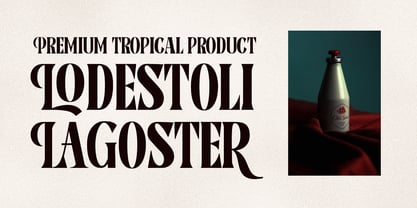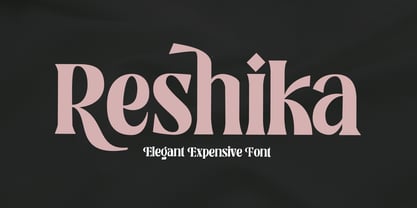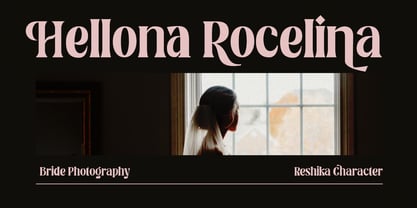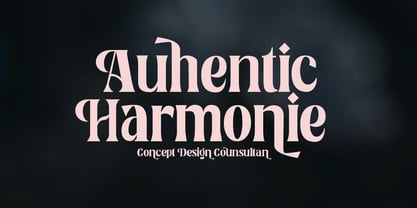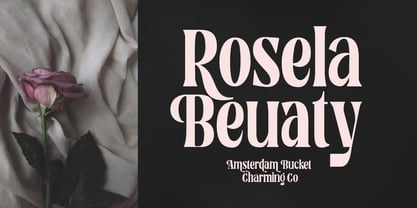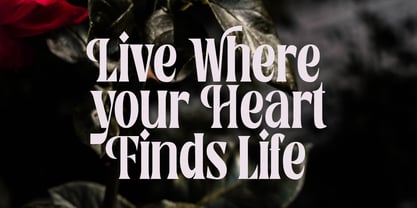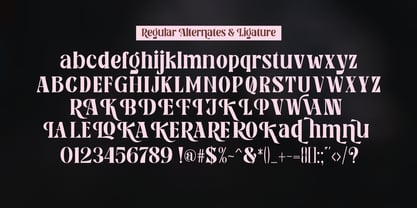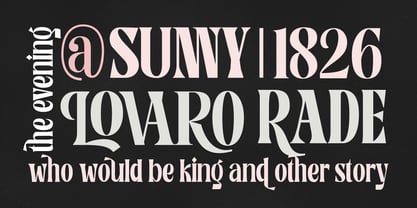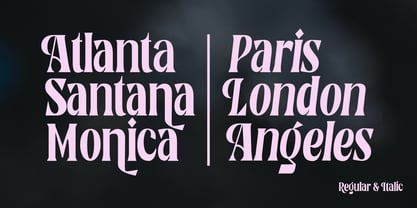
Reshika
Reshika Serif We are proud to present our new font. New Regular Serif and Natural Italic with classy and modern style make this font looks elegant, natural and stylish.
Reshika is perfect for invitations, logos & branding, photography, advertisements, watermarks, social media posts, product packaging, product designs, labels, wedding designs, stationery, special events or anything needed to create a theme.
Reshika is built with OpenType features and includes leading and trailing language styles, alternate characters for most lowercase letters, numbers, punctuation, alternates, ligatures and also supports other languages.